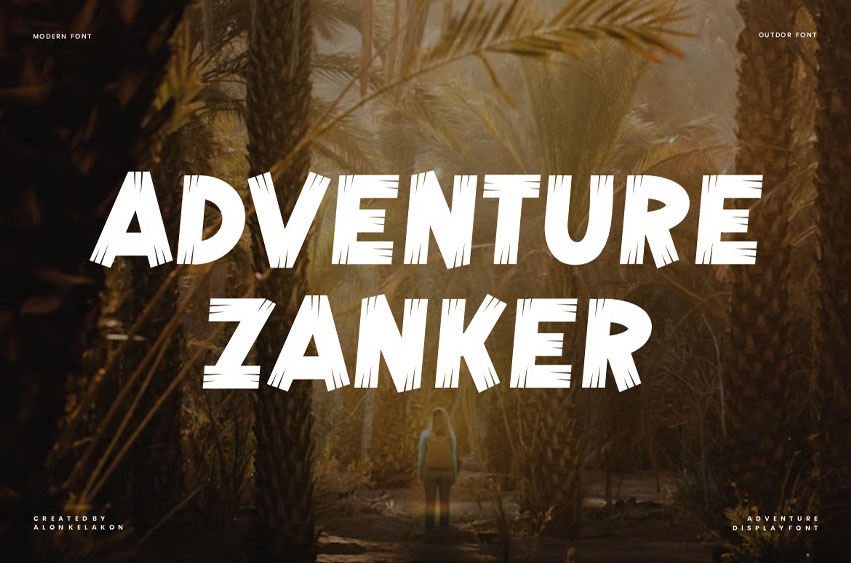
Adventure Zanker Font
Adventure Zanker Font is a bold, modern display font with a rustic, outdoor feel. Perfect for projects that need a strong and adventurous look, the font features a unique texture with slightly jagged edges, giving it a handcrafted and rugged character. Its all-caps design makes it ideal for impactful headings, titles, and logos.
Zanker is a versatile font that includes:
• Numerals
• Punctuation marks and symbols
Whether you’re designing for posters, branding, or digital media and other, Zanker brings a bold, adventurous spirit to your creative work.